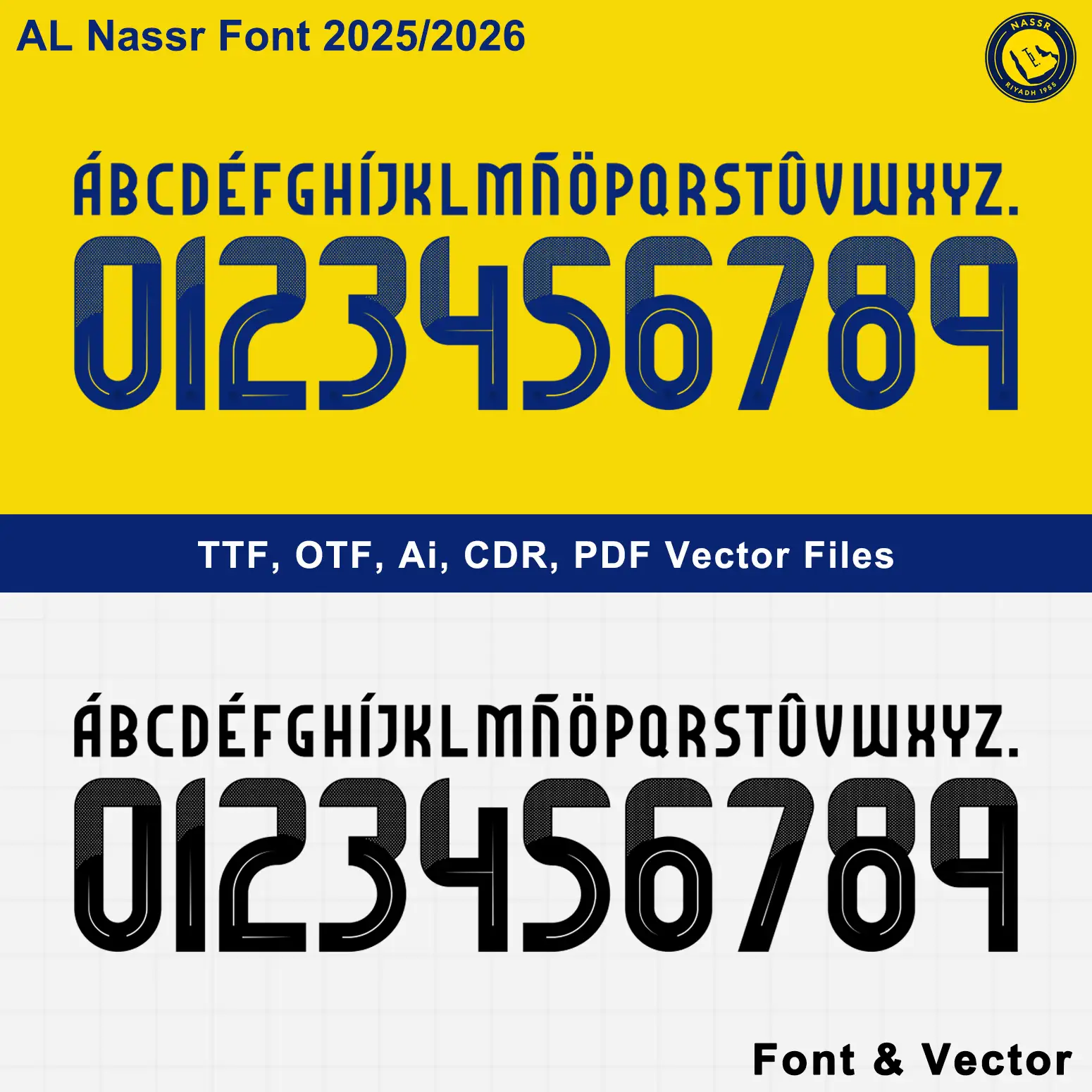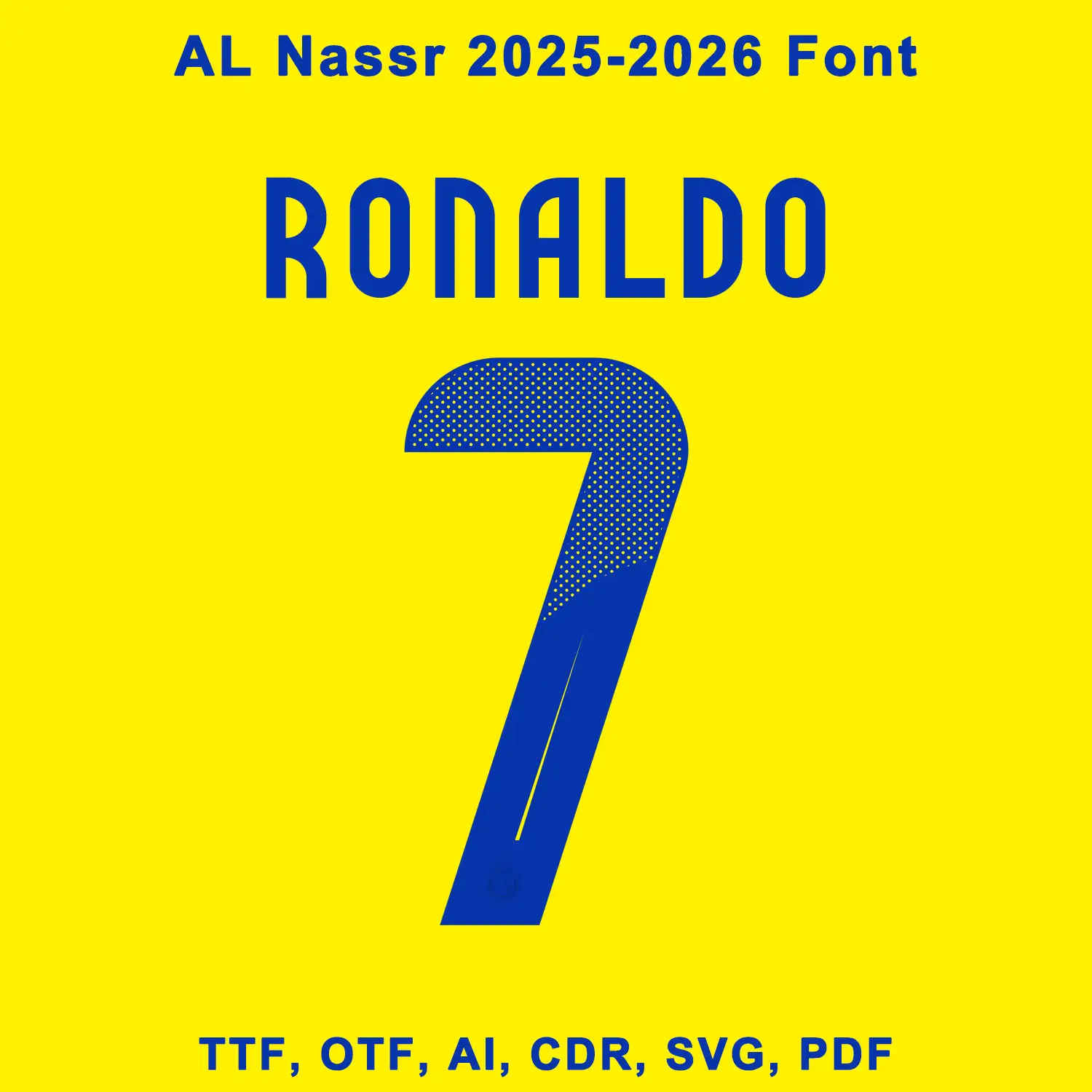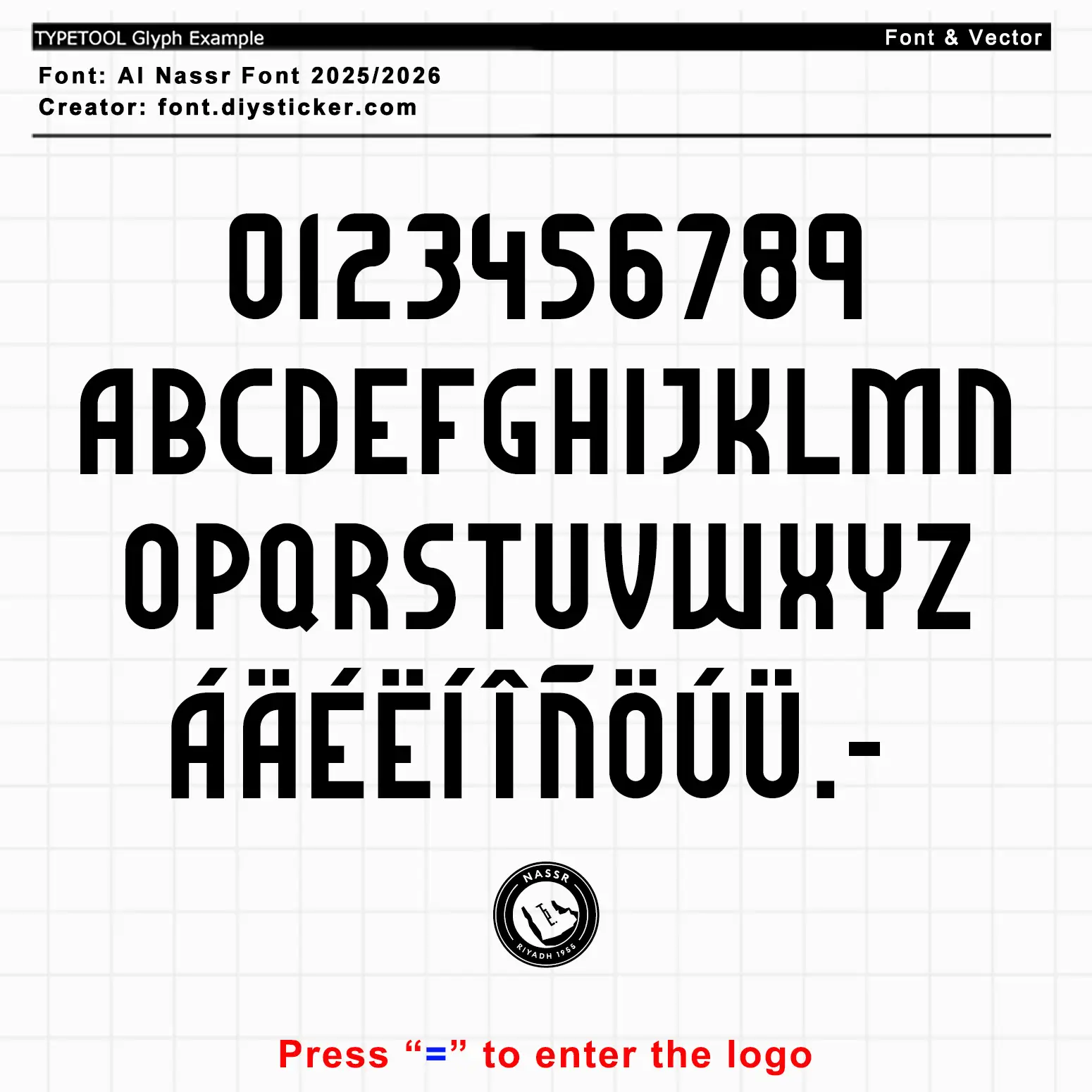
Al Nassr Font 2025/2026 Kit Overview
Our Al Nassr Font 2025/2026 digital package is designed to perfectly replicate the official typography used by the club during the upcoming season. Created for designers, kit restorers, and custom apparel makers, this kit includes all uppercase letters, accented characters, numerals, and special glyphs required for authentic jersey personalization.
Whether you’re restoring a vintage replica, creating custom fan wear, or designing sublimation prints for a local team, this premium font pack delivers clean, scalable vectors that work seamlessly with all major design software. The set also includes a special character for the Al Nassr crest, accessible via the “=” key in the TTF/OTF files.
A: Absolutely. The Al Nassr Font 2025/2026 pack includes accented letters (Á, É, Í, Ñ, Ö, etc.) to support international player names.